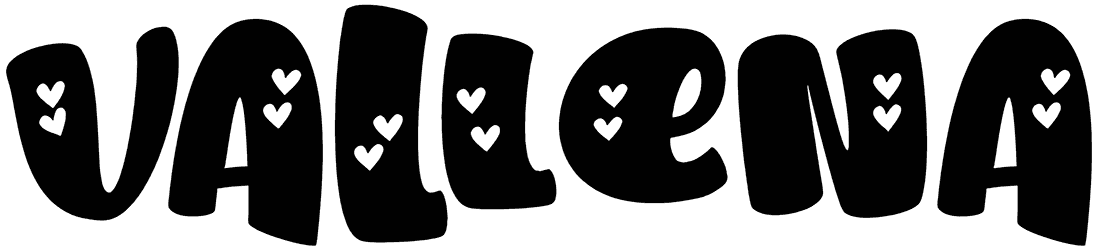
Baligle Font
Creating stickers, quotes, merchandise, greeting cards, and album covers isn’t so hard if you know what to do. For example, you can try Baligle which is a heart font, it will give your content a retro and funky vibe.
This font comes with an awesome collection of characters that contain both the uppercase and lowercase of the alphabet, the numbers, and the punctuation marks.
Designed by: 7NTypes